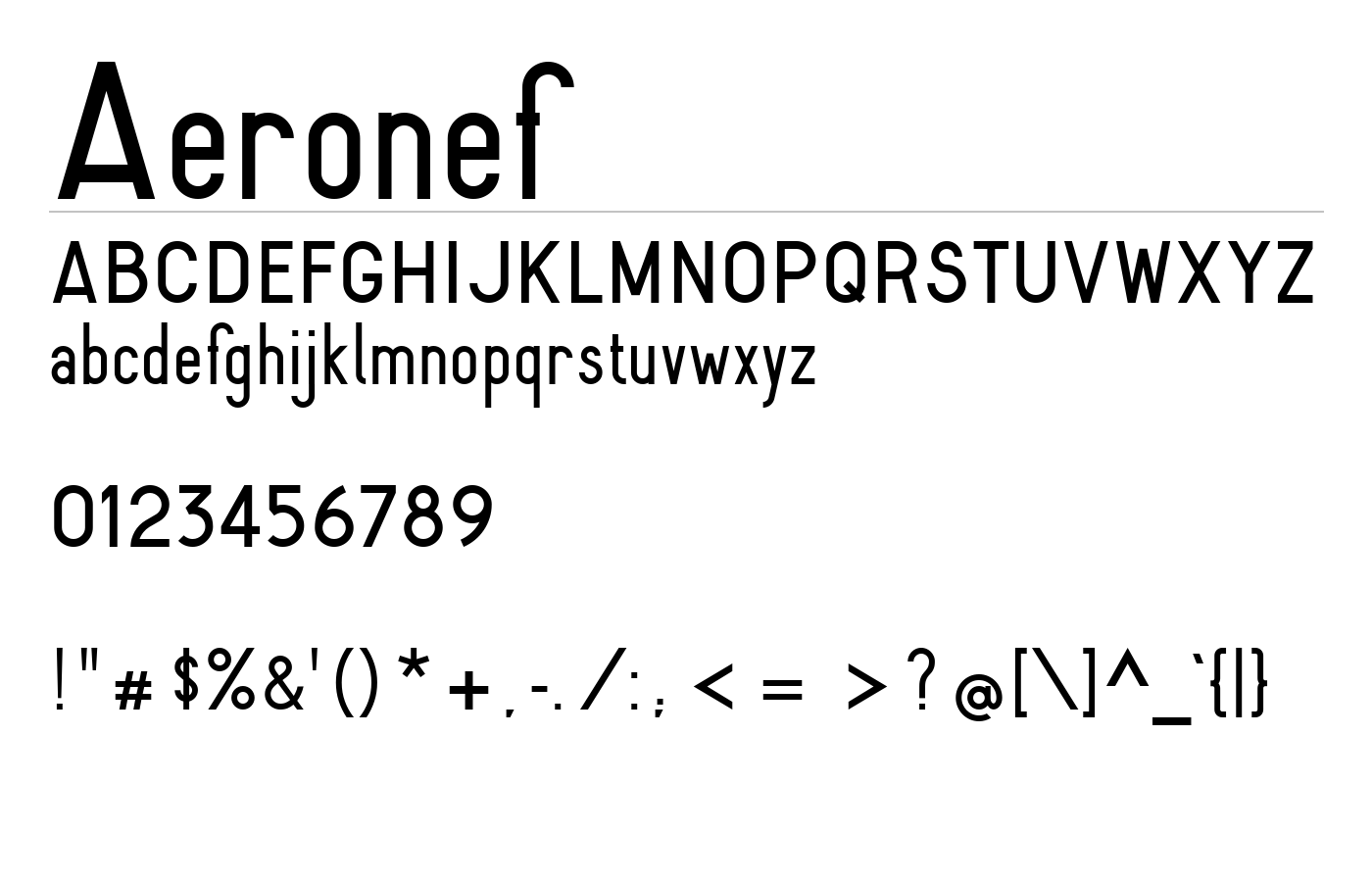
Aeronef is a condensed sans serif font with a clean, modern look characterized by its tall x-height and narrow letterforms. Its consistent stroke weight and slightly geometric shapes give it a sleek, efficient feel, making it ideal for contemporary branding, editorial headlines, and technical or futuristic design contexts. This font works well where space is limited but clarity and style are essential.
Aeronef Font
About Aeronef Font
| Designer | Peter Wiegel - CAT-Fonts Germany |